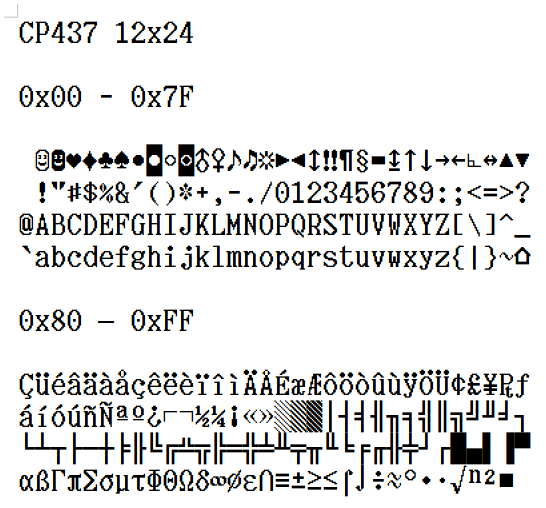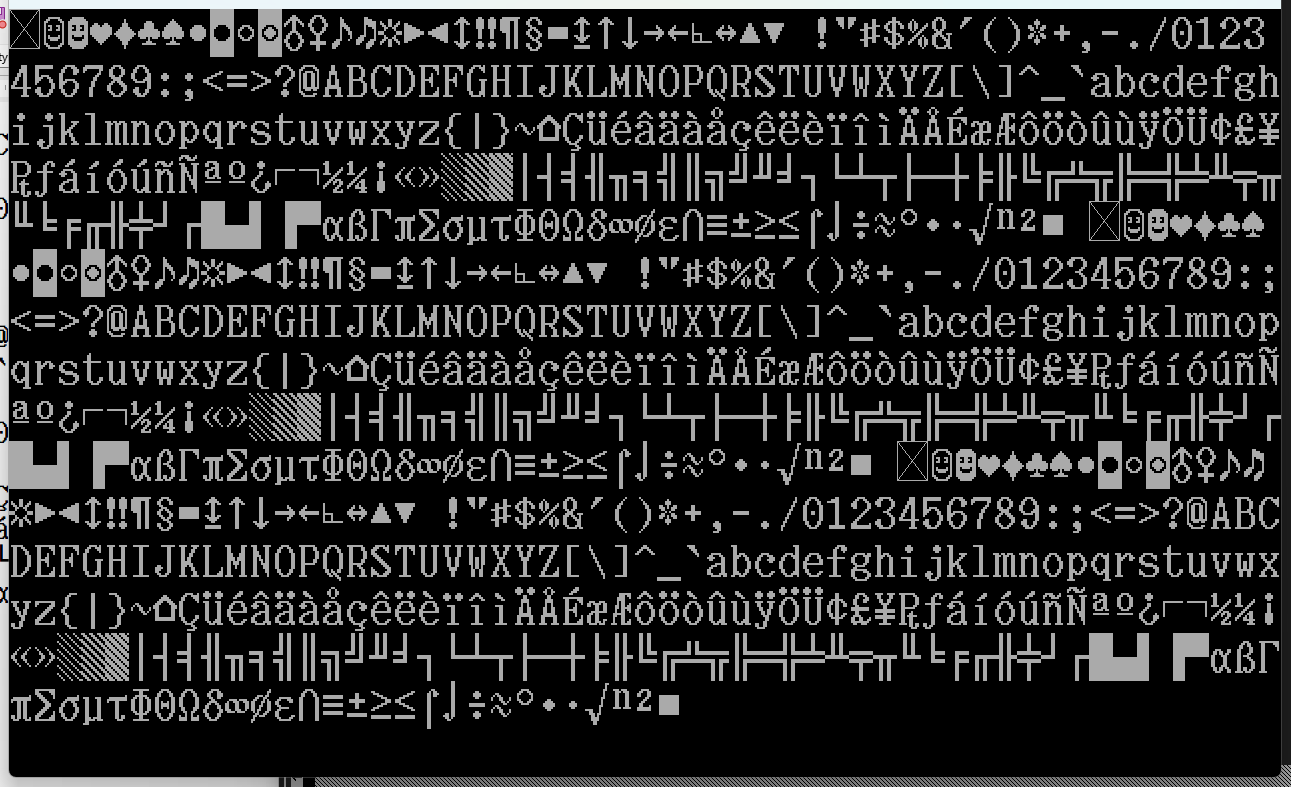
• A font based on the IBM PS/55 Japan customized for Code Page 437 on the int10h.org site.
Sep 25, 2025 - Added textures and building block type glyphs starting at U+E000. These work quite well as a loaded font in QB64 PE apps and I can mix the 12x24 with the 24x24. This gives me a way to create the maps on a square grid and add text that looks normal since two language letters fit in one square cell.
One pro/con about these glyphs is that they are intended to be displayed, and not printed, with a light color on a dark background. Many glyphs look like negative images and that's exactly how I'm designing them. I programmed a little drawing program that has two drawing areas with the second being a real-time reverse image of the first, and that helps when designing the glyphs to be entered into FontStruct.
Sep 23, 2025 - Changing my plan to make all glyphs in the Unicode Private Use Area from U+E000-U+F8FF minimum size of 24 pixels by 24 pixels. They will be double-wide and possibly triple-wide or quad-wide. A capability of outline fonts is that a glyph can extend beyond the boundaries contrasted with legacy bitmap fonts. I need symbols and sprites that extend parts into the adjacent cells to represent actions like a swinging sword, fire breath, power bolt, etc. With 4096 Unicode Codepoints just from U+E000 - U+EFFF, I'll be able to define different textures, creatures, poses, and actions without being limited to a bounded box.
All glyphs in U+F000 - U+F8FF will be reserved for character sets from different computers starting with double-wide characters from IBM Code Page 437 represented with U+F000 - U+F0FF. Eventually, I'll add interesting sets from other computers that typically have 256 characters.
I wanted a Code Page 437 Font with 1x2 aspect ratio with dimensions evenly divisible by 4. A language glyph typically occupies 10 pixels wide by 16 pixels high centered horizontally and vertically. This gives a 1 pixel pad on the left and right and 4 pixels on the top and bottom, which looks better in text only, grid based programs. Letters and symbols with multiple vertical strokes, complex contours, or serifs, such as @, M, m, W, etc. may touch the boundaries. Letters with descenders can take up to 2 pixels below the base line. Diactric marks can extend up to 2 pixels above the letter height. All other graphic, block and line drawing glyphs can occupy the full 12x24. Originally designed for Roguelike programs, I use this font with QB64 Phoenix Edition which supports the default ASCII to Unicode mappings. I installed the TTF file in Windows 11 and have no problem so far. I may add support for other Unicode symbols or possibly in the Private Use Area.
Installed in Windows 11 with all ASCII and Extended characters in Libre Writer document.
Installed in Windows 11 with all ASCII and Extended characters in a QB64 PE sample application. Intended for Roguelike.